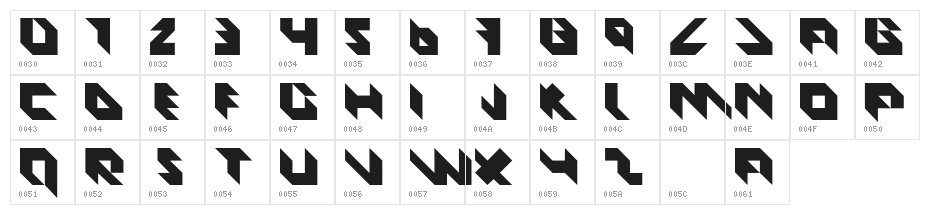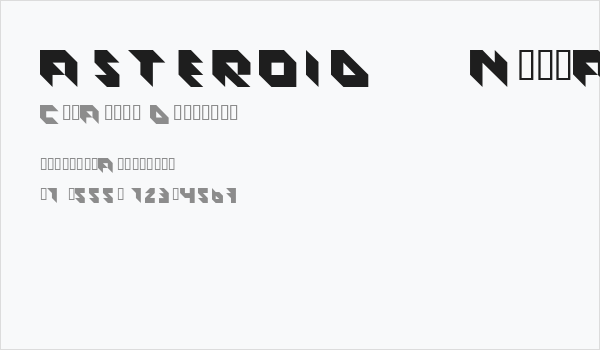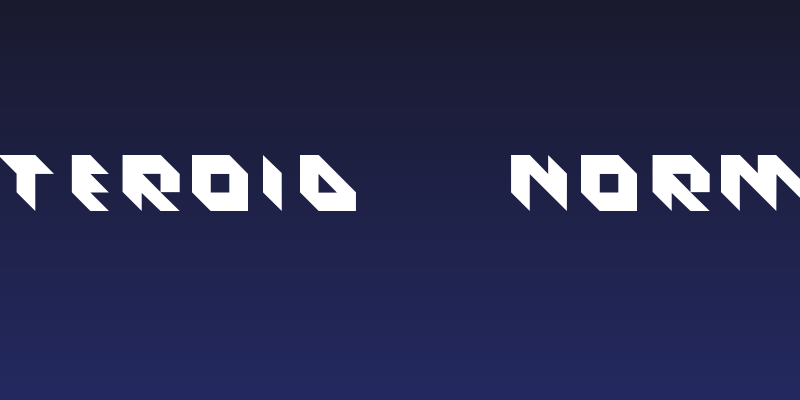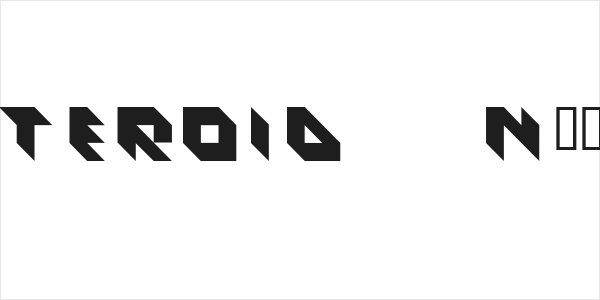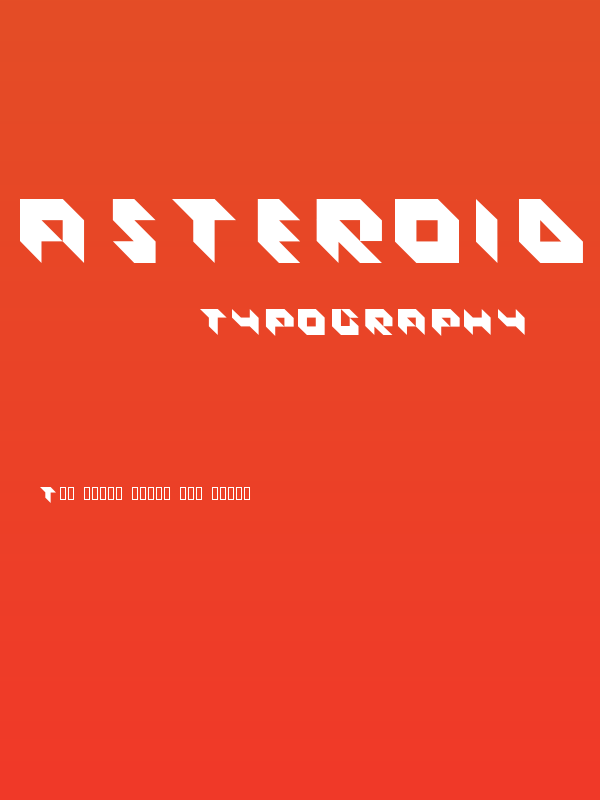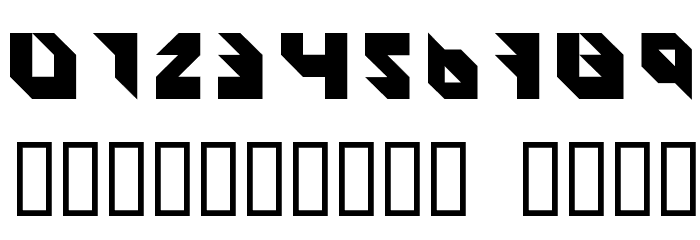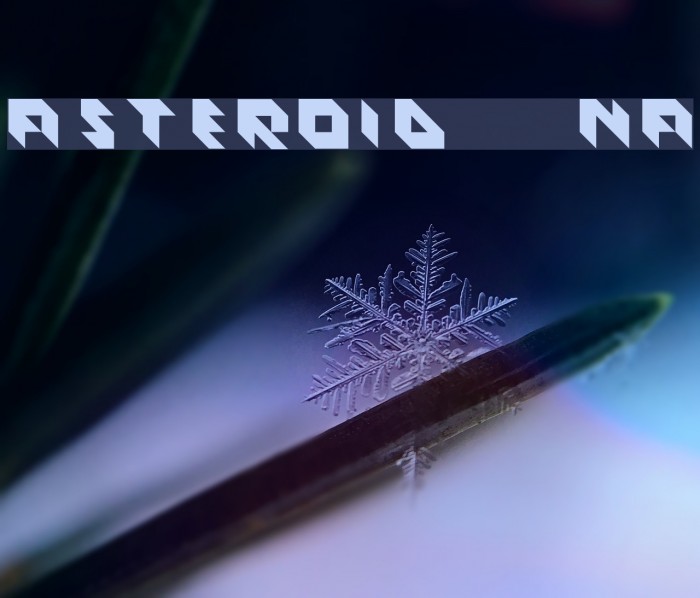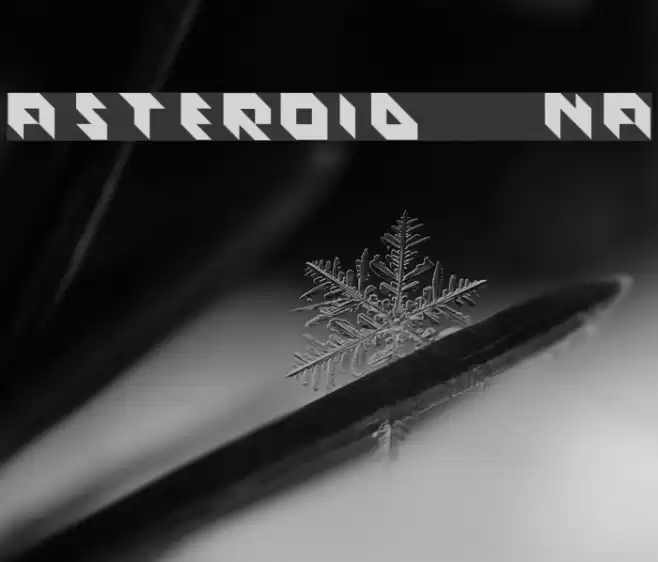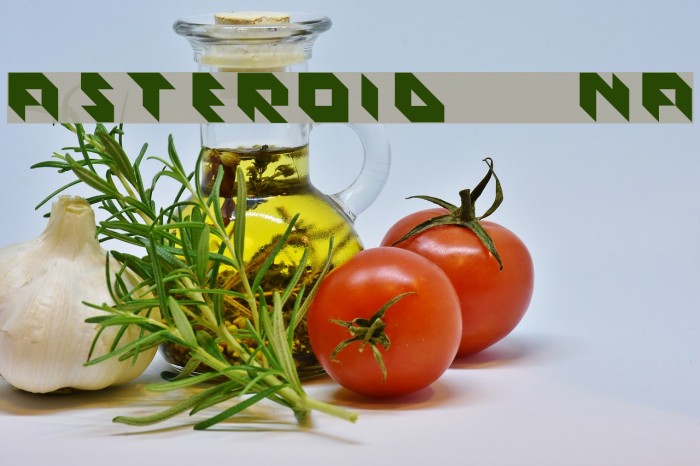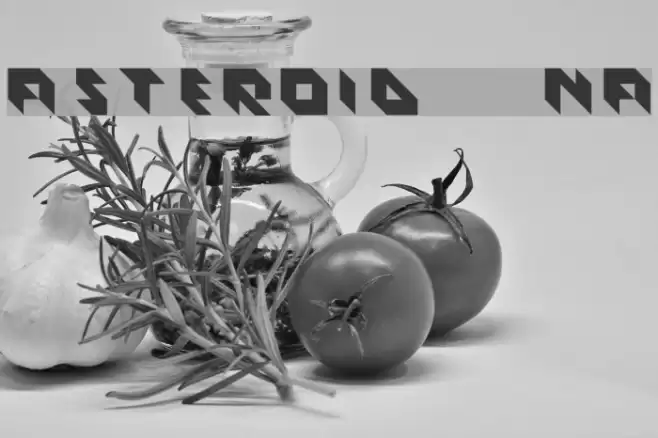
ASTEROID Normal Font
ASTEROID Normal Description
This font features a bold, geometric design with sharp angles and a futuristic aesthetic. The uppercase letters are crafted with a distinct angular style, creating a sense of movement and energy. The lowercase letters maintain the same geometric theme, ensuring consistency throughout the typeface. Numbers and special characters are also designed with the same angular precision, making them stand out. The font's unique style is reminiscent of digital or sci-fi themes, making it ideal for projects that require a modern and edgy look.
| Proposed Projects | Ideal for sci-fi themed posters, video game titles, tech branding, and futuristic event flyers. |